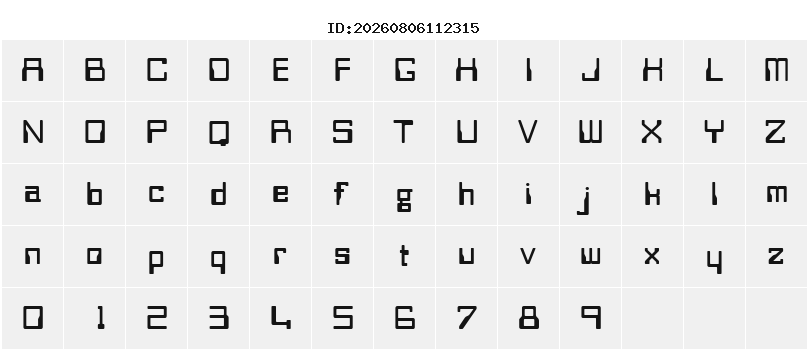
• Font Name: Orbit-B BT
• Font ID: Orbit-B, Computer 851
• Full Font Name: Orbit-B BT
About Orbit-B BT.ttf
Orbit-B BT.ttf is a modern, elegant sans-serif font designed for ultimate readability and visual harmony. Perfect for branding, headlines, web design, and print materials.